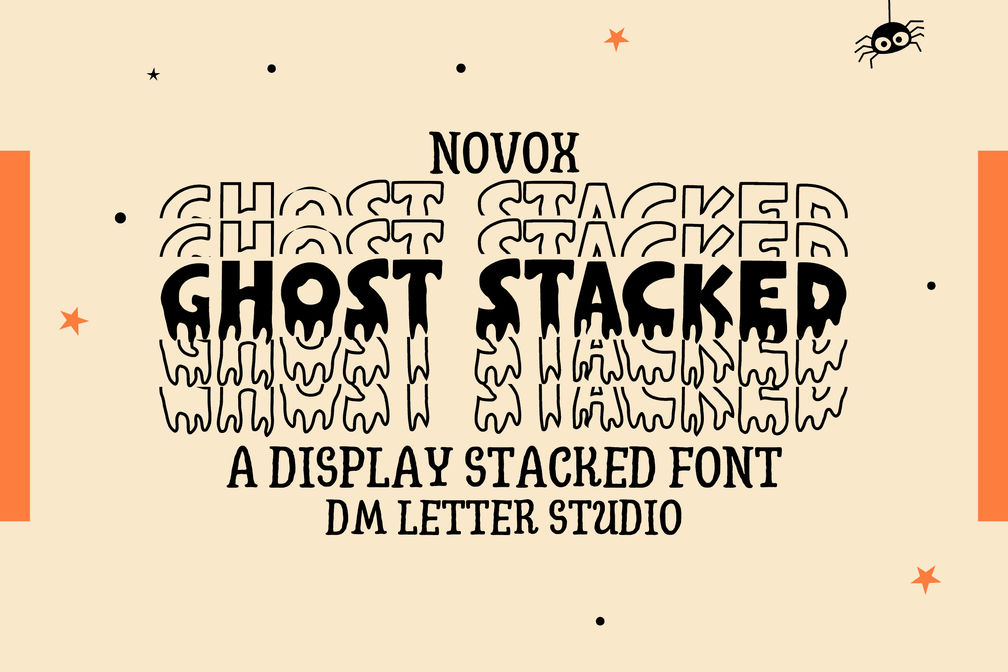
Novox Ghost Stacked
Novox Ghost Stacked – A Haunting Display Font
Novox Ghost Stacked is a chilling and stylized stacked variant of the original Novox Ghost font. With its spectral strokes, eerie balance, and vertically-aligned form, this typeface conjures an otherworldly atmosphere perfect for Halloween designs, ghost-themed branding, thriller titles, and spooky crafts. Its stacked arrangement creates a dramatic and mysterious presence on posters, logos, and digital graphics.
• Ghostly Stacked Form: Vertically aligned letters evoke haunted visuals with unique spacing and presence.
• Perfect for Spooky Themes: Ideal for Halloween posters, ghost stories, eerie merch, or horror projects.
• Bold & Dramatic: Draws attention with sharp lines and spectral style that commands the page.
• Highly Versatile: Works across print and screen—great for web banners, apparel, signage, and packaging.